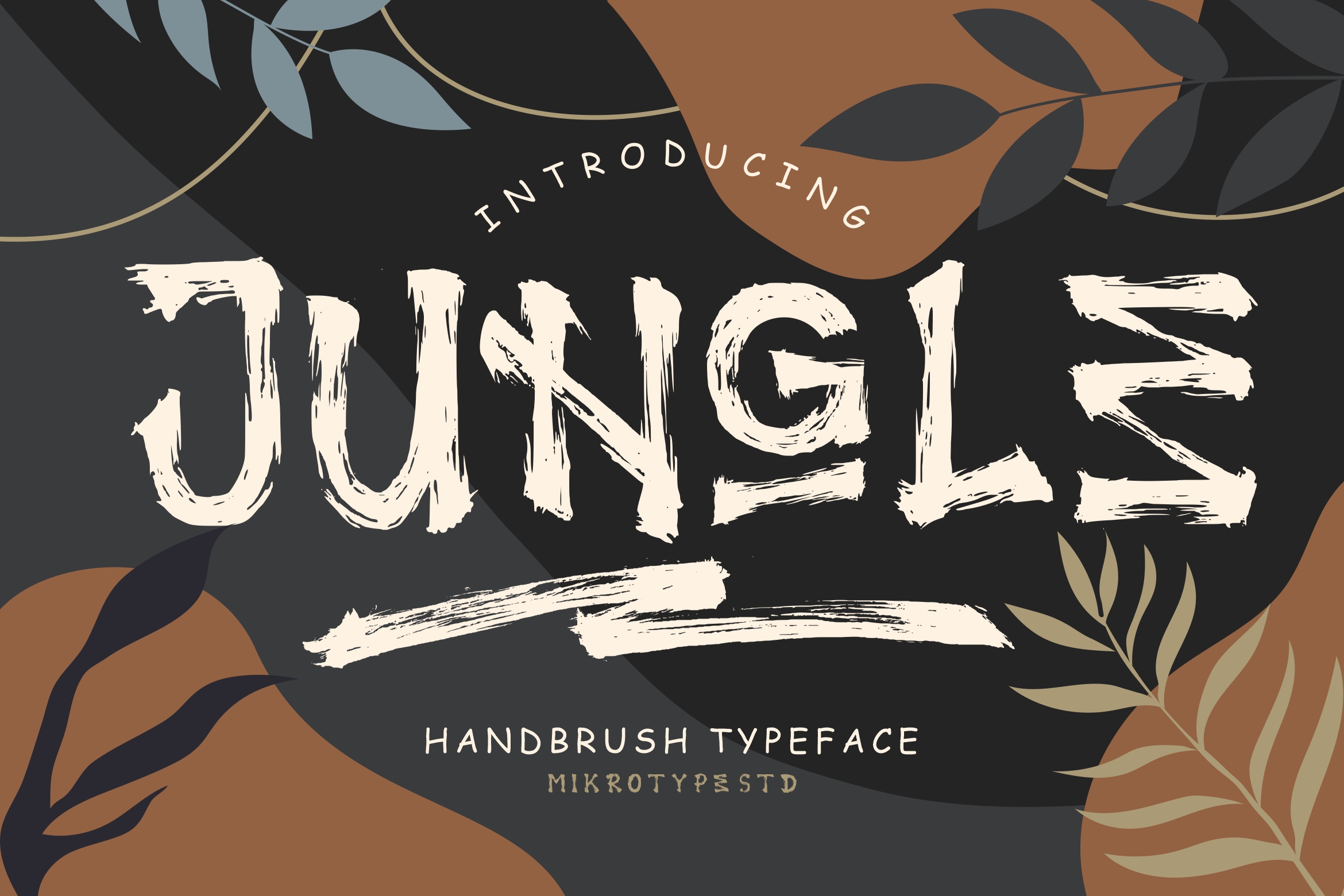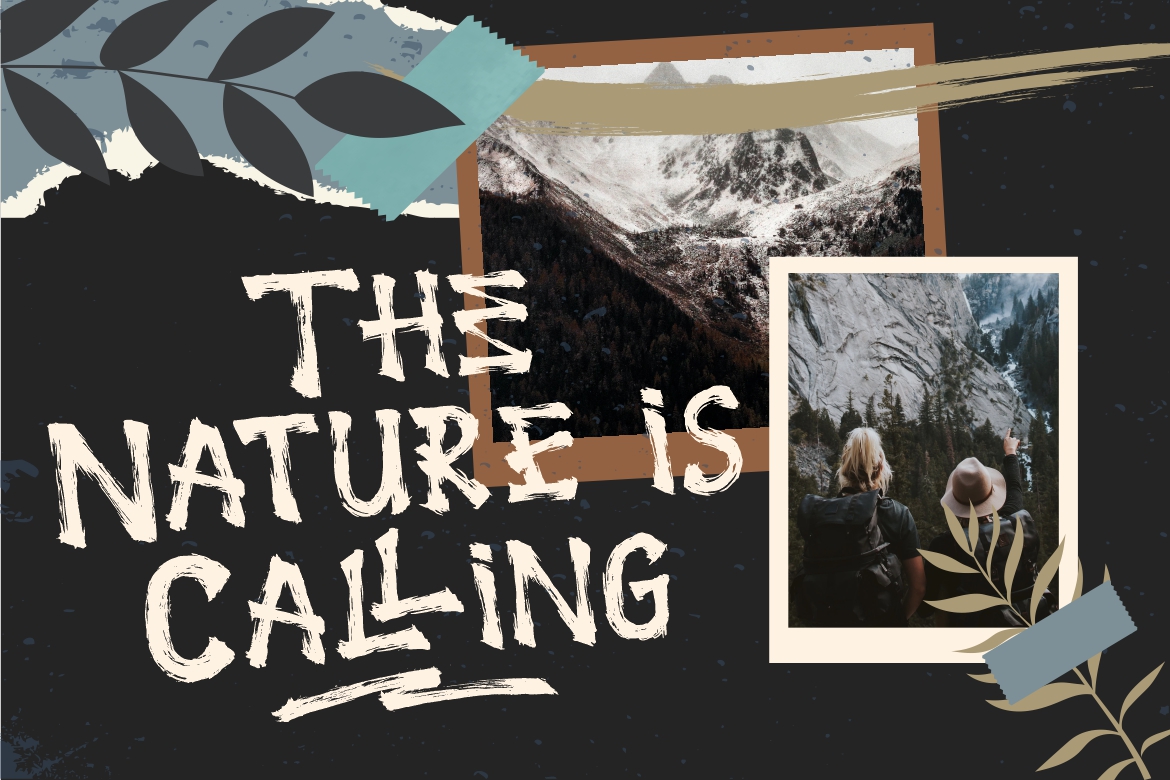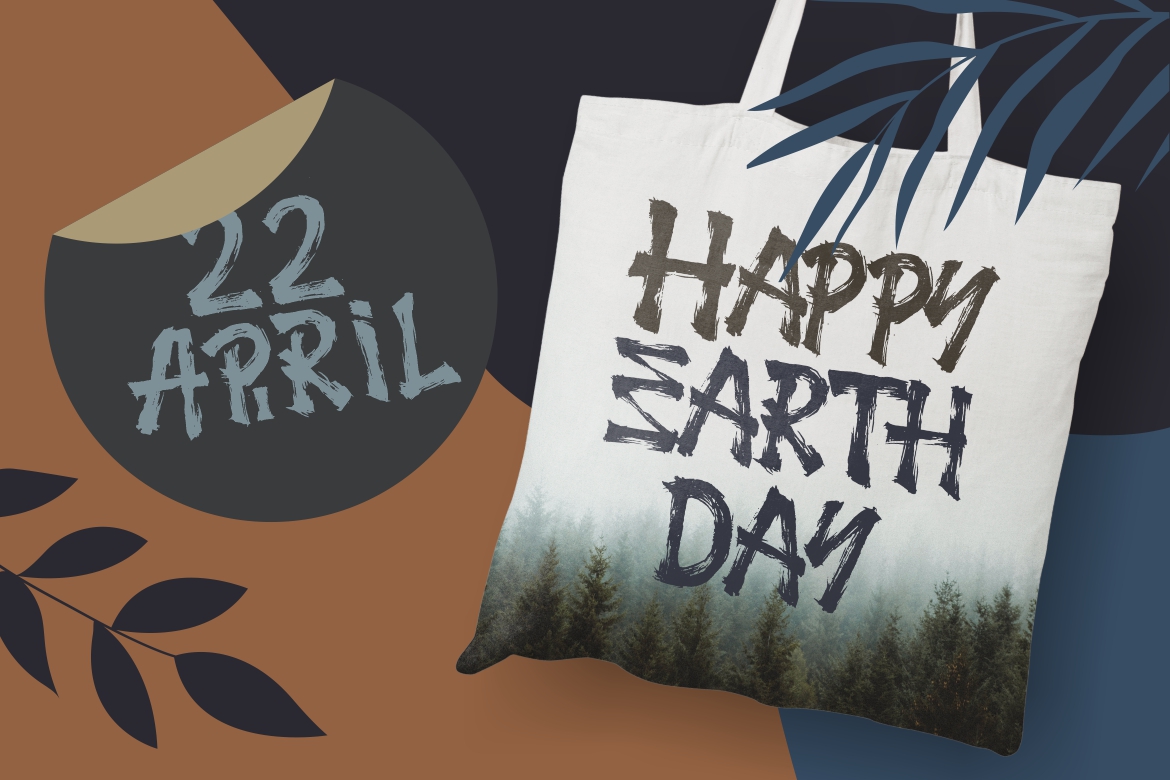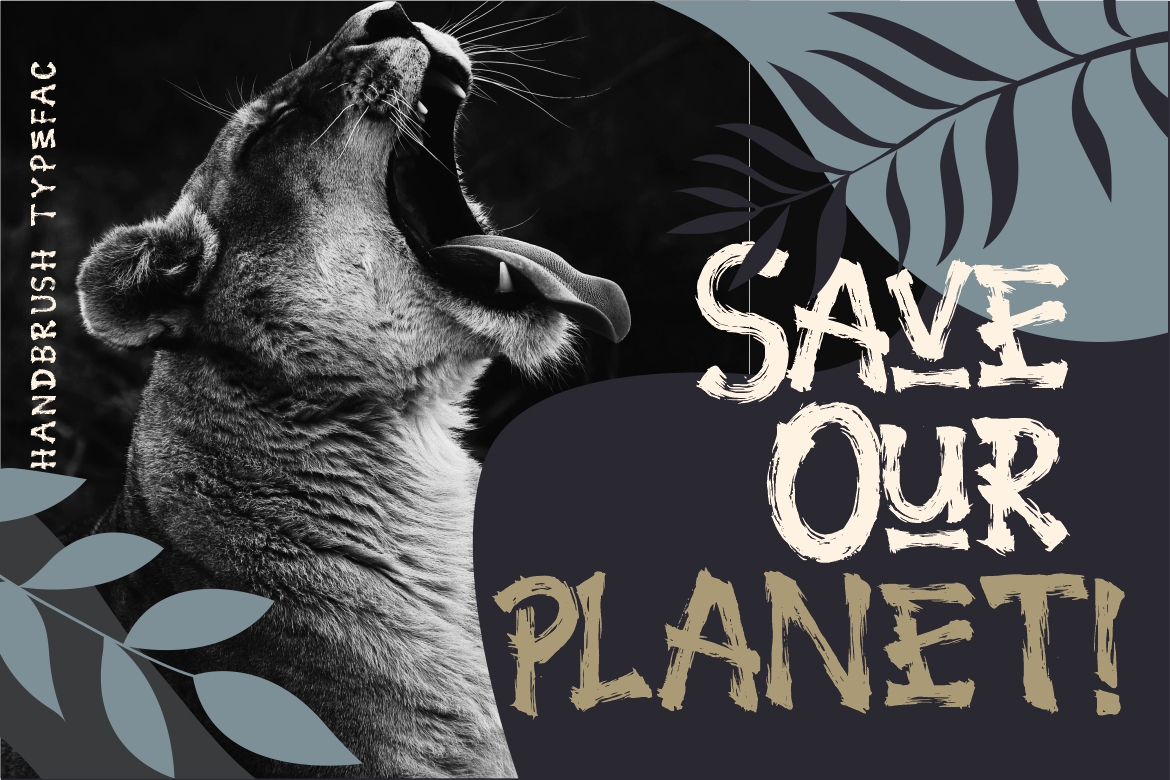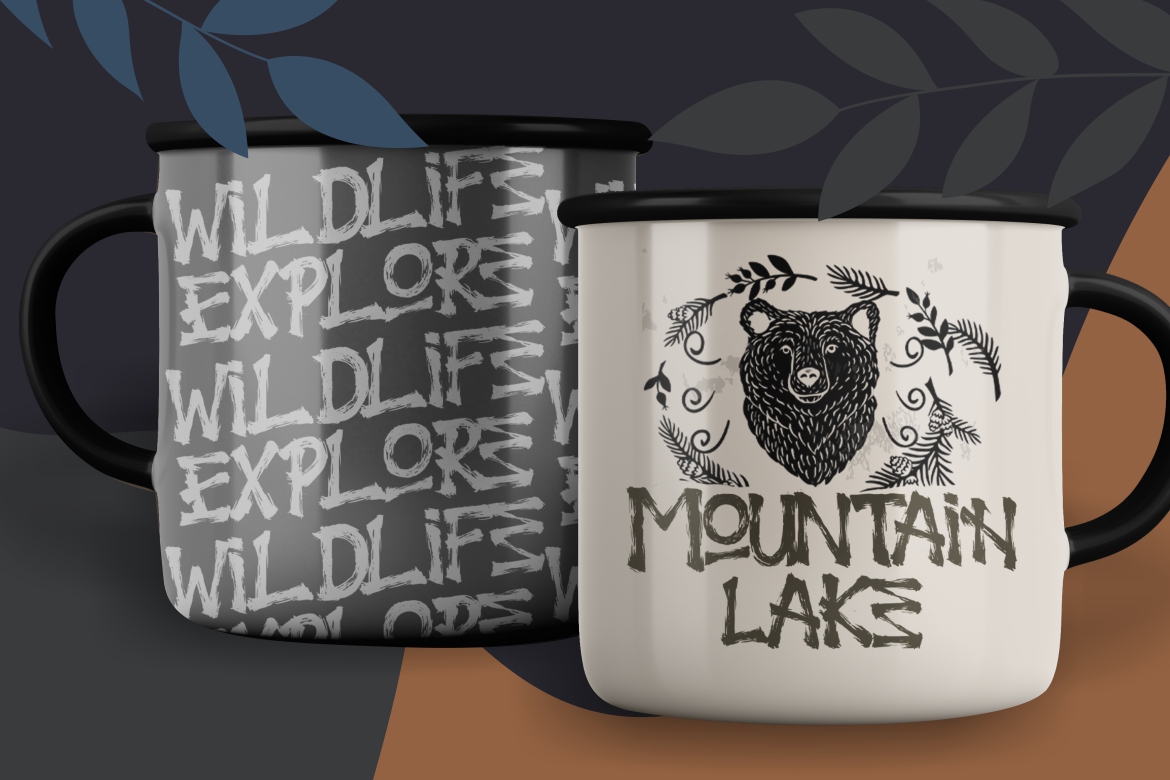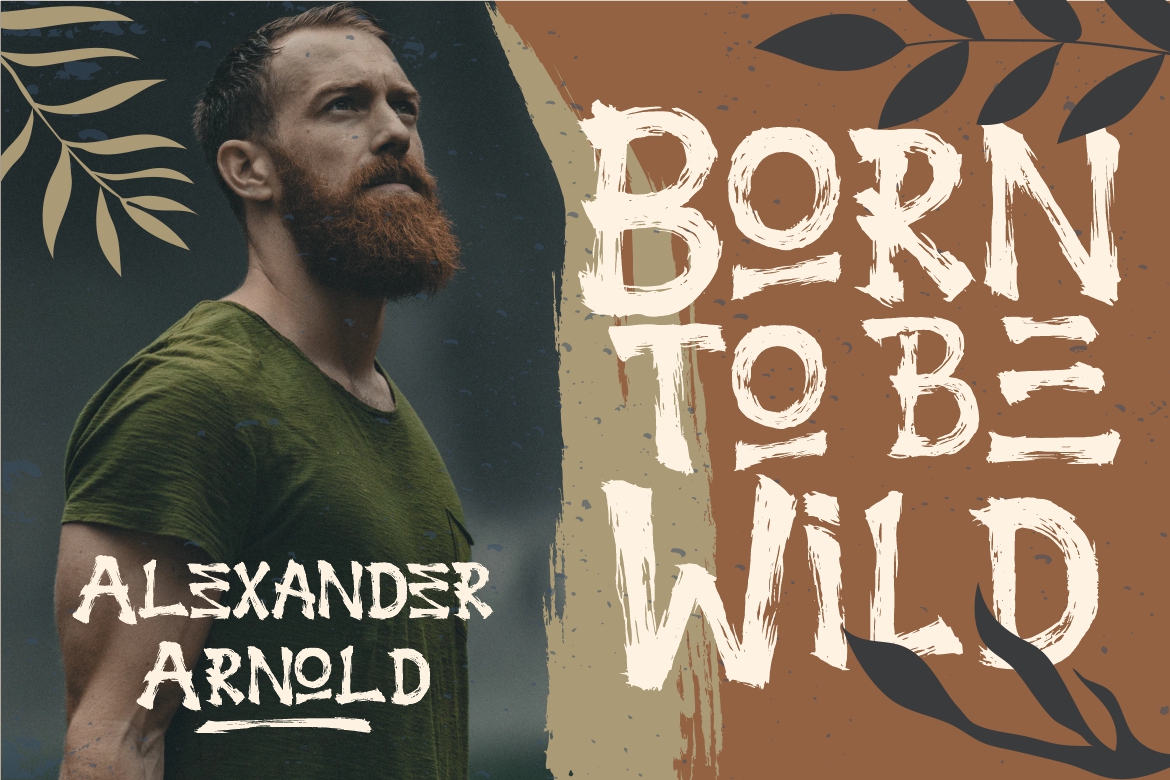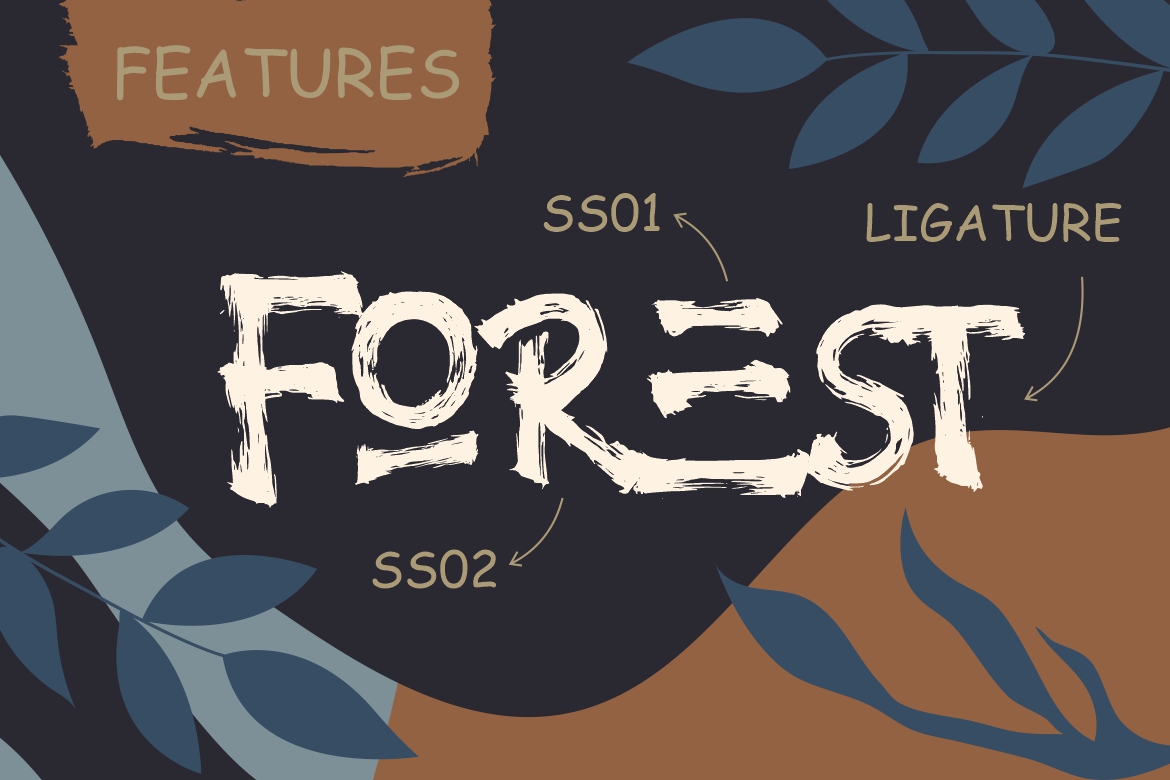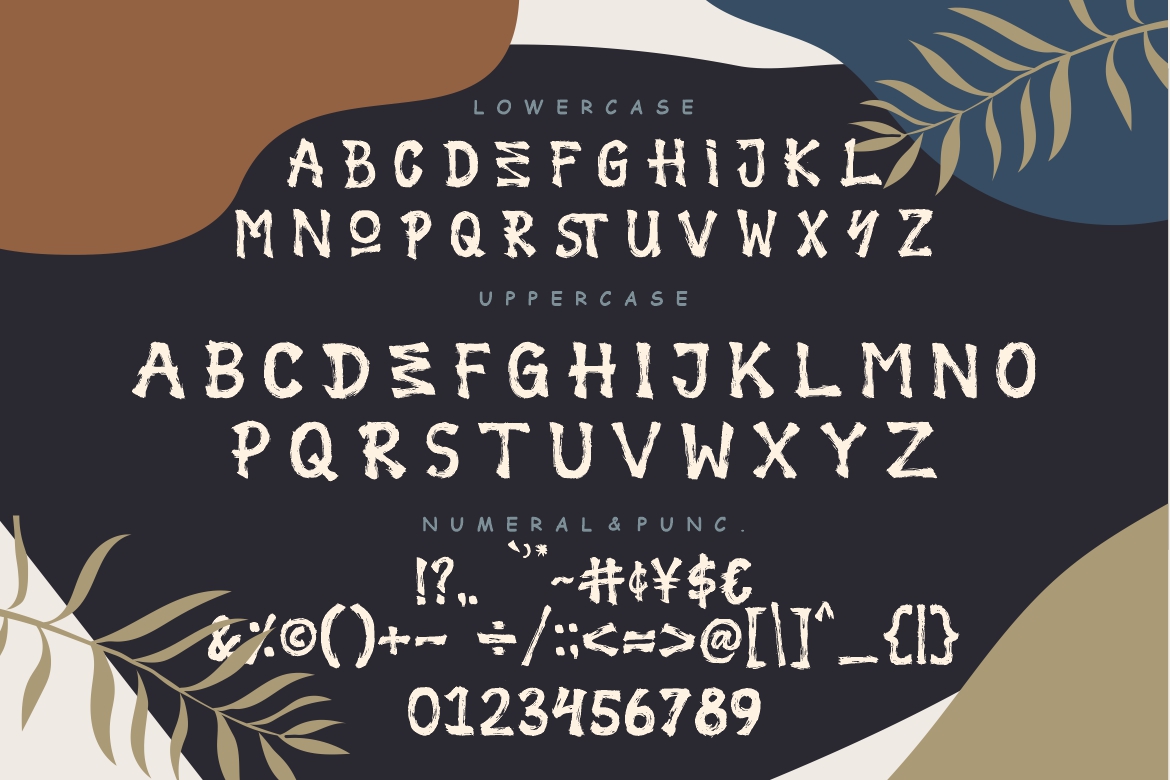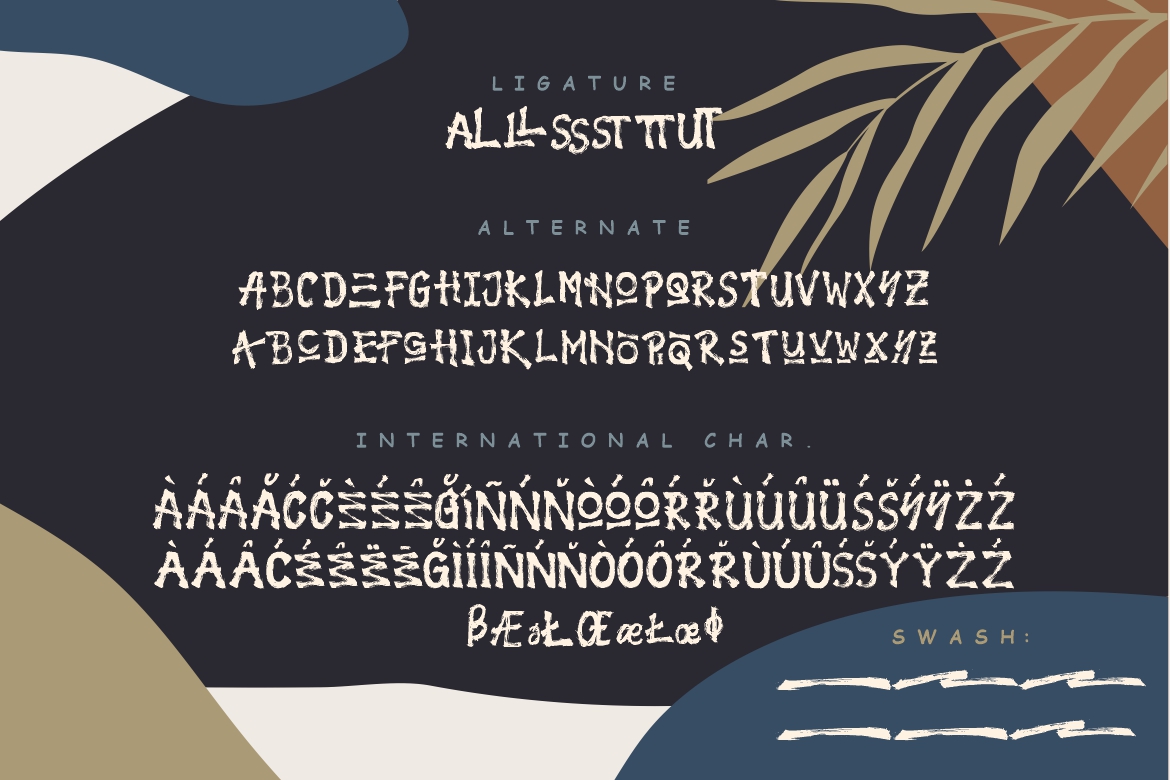
Jungle Handbrush Instagram Font
Introducing Jungle Handbrush – A hand natural brush display font that strong, fun and simple which inspired by children books and street hand drawn typography.. This font will looks awesome and amazing in many way to your latest project. The font is perfect for for movie title, logo, blogging, brand identity, book title, social media, branding, wedding invites, cards or simply use it in your next design project and suitable to use for many occasion.
• Ton of glyphs
• Ligature & Alternate